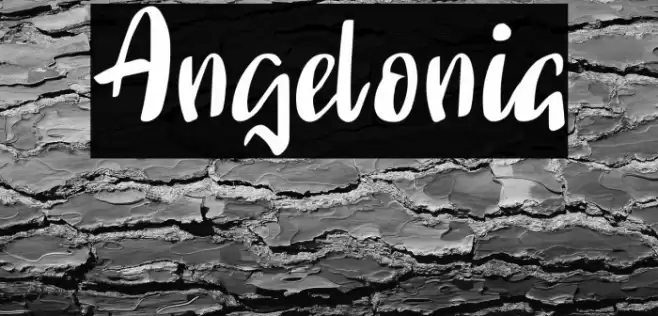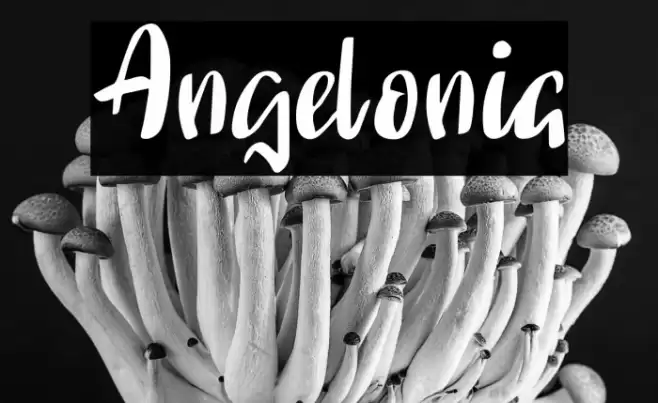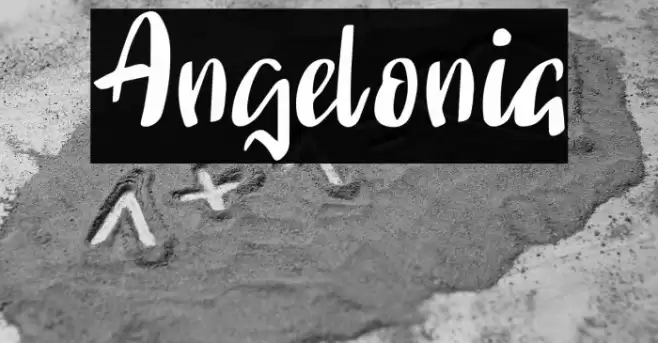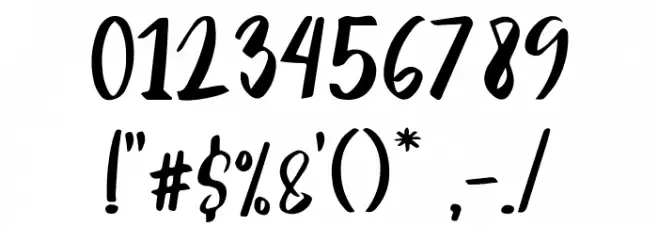
Angelonia Font
Angelonia Description
This font features a bold and expressive script style with a hand-drawn appearance. The letters are fluid and connected, creating a sense of movement and elegance. The uppercase characters are particularly striking, with sweeping curves and flourishes that add a decorative touch. The lowercase letters maintain a consistent flow, complementing the uppercase with their rounded forms. Numbers and special characters are designed with the same artistic flair, ensuring a cohesive look across all text. The overall impression is one of creativity and dynamism, making it suitable for projects that require a personal and artistic touch.
A bold, expressive script font with a hand-drawn, artistic style from Regular fonts.
- Proposed Projects: Ideal for wedding invitations, greeting cards, branding, and creative posters.
- Use Case: Logos, Headlines, Invitations